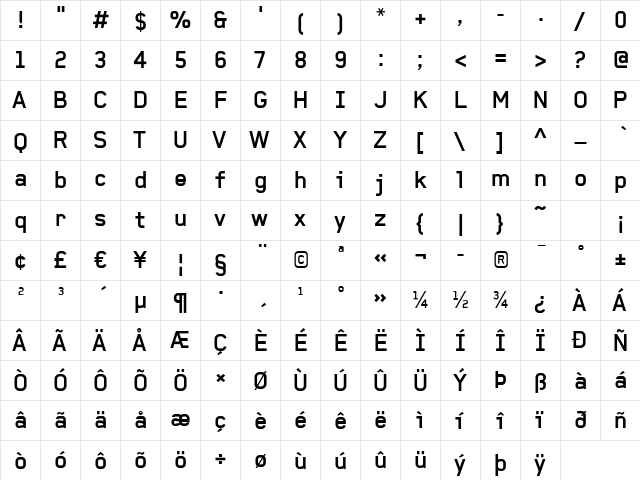
Baksheesh Bold
Design Context for Baksheesh Typeface
Baksheesh takes a measured approach to typography — its balanced proportions and neutral character make it a reliable workhorse for both digital and print work. The heavy weight commands attention and anchors typographic hierarchies.